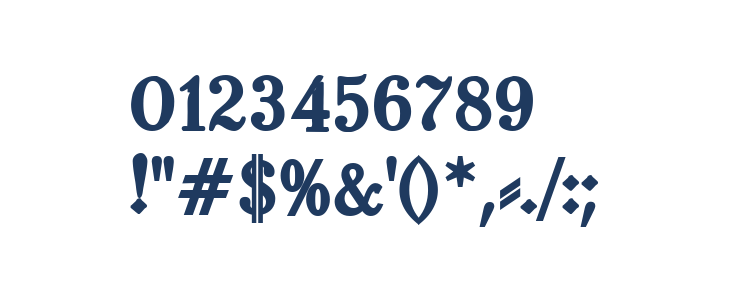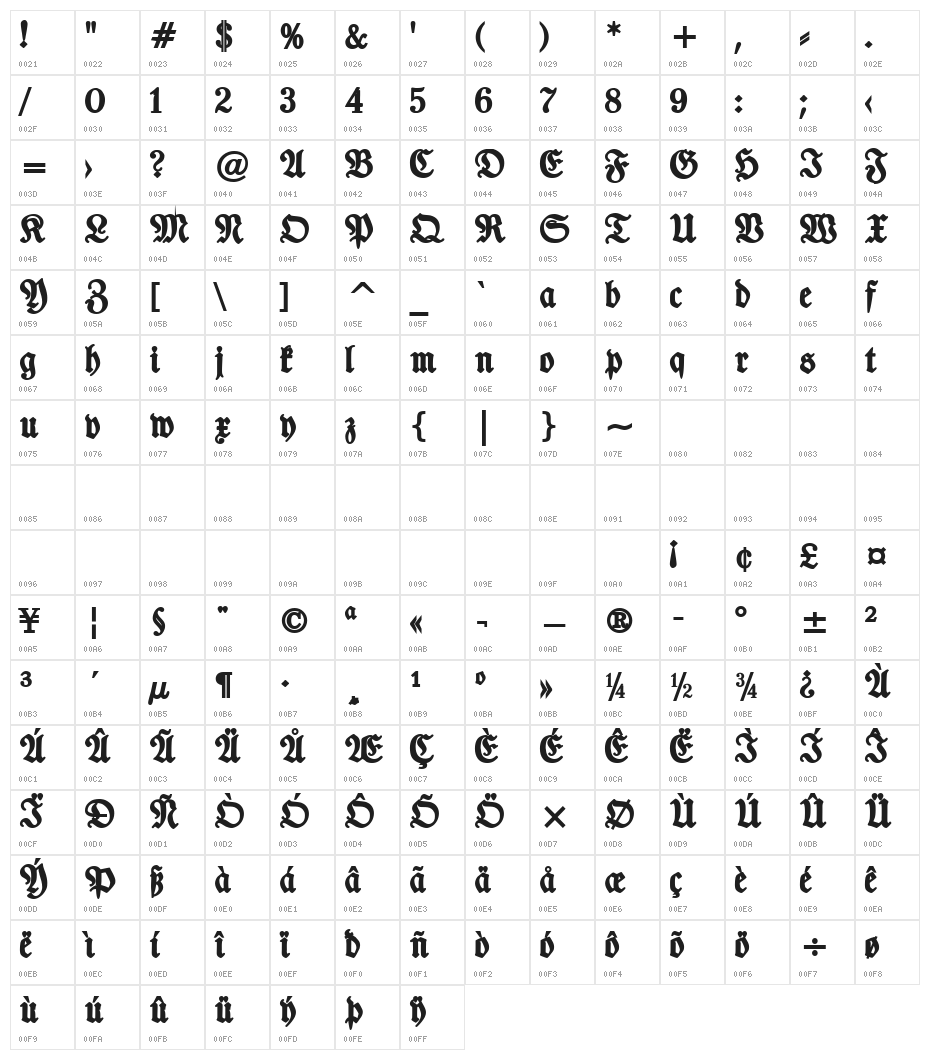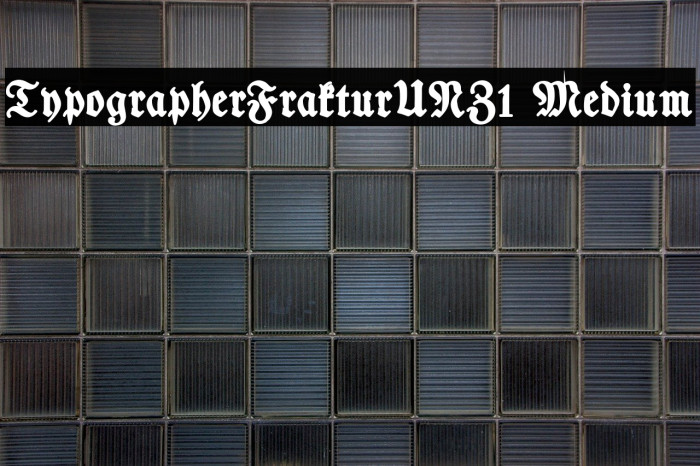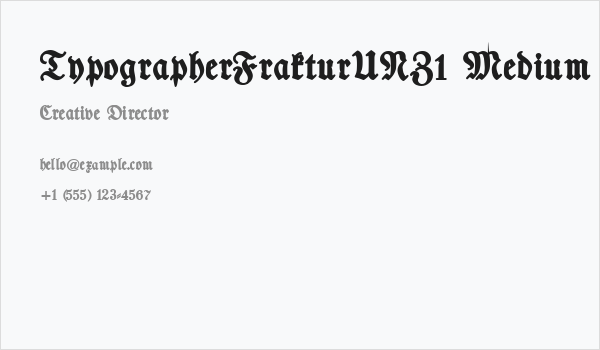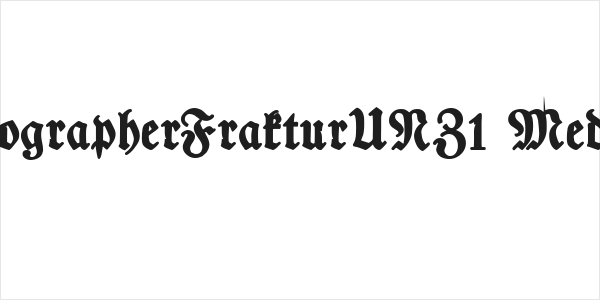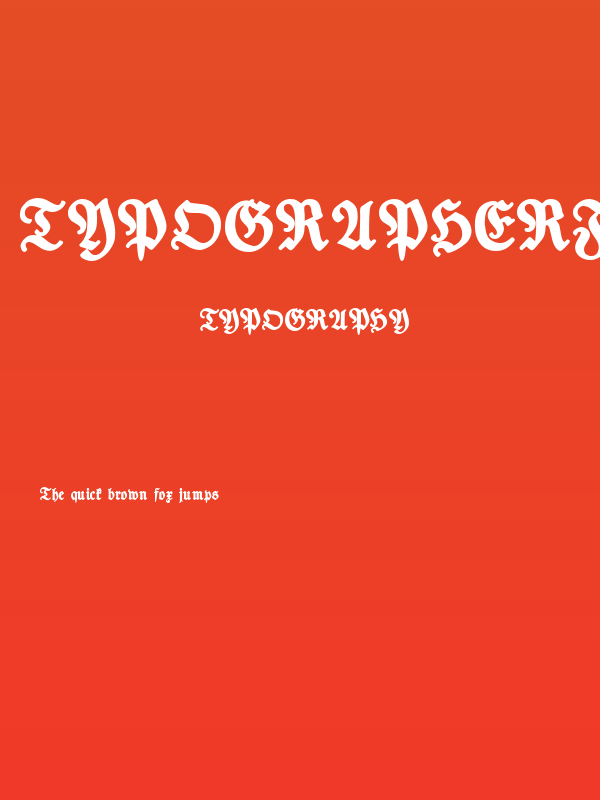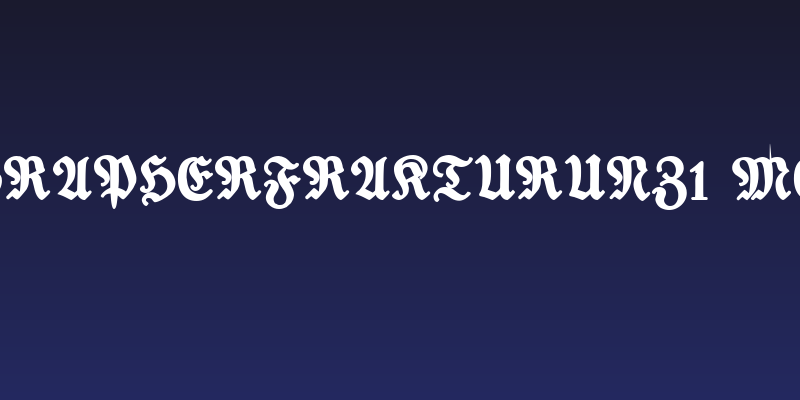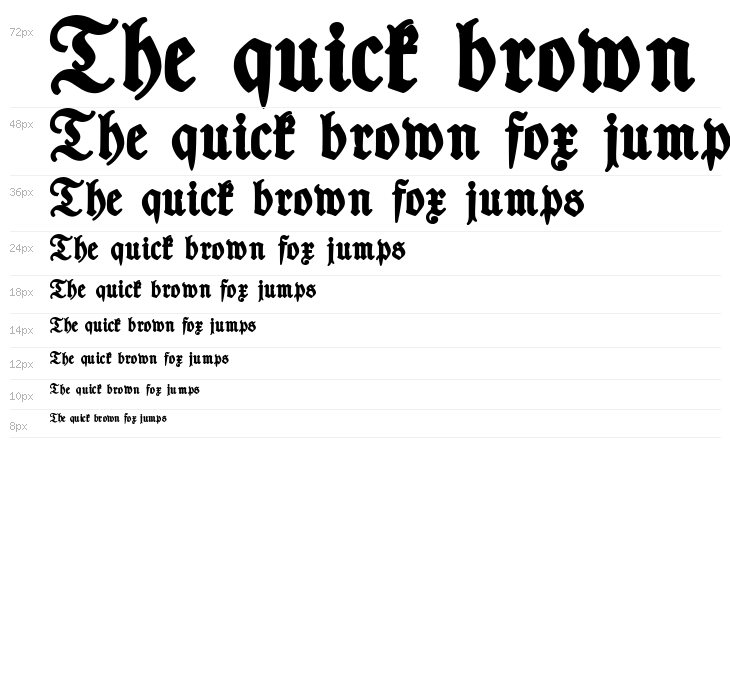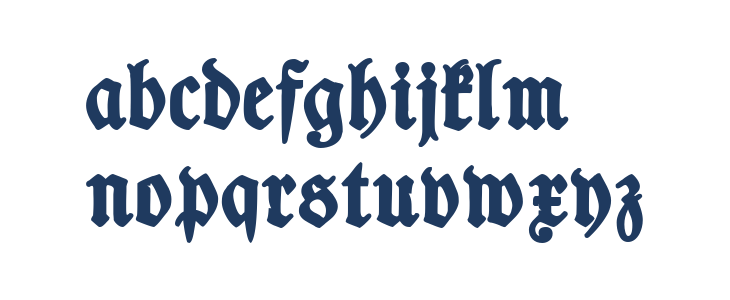
TypographerFrakturUNZ1 Medium Font
TypographerFrakturUNZ1 Medium Description
This font features a classic Blackletter style, characterized by its intricate and ornate letterforms. The uppercase letters exhibit a strong, angular structure with elaborate flourishes, while the lowercase letters maintain a consistent, bold appearance with sharp edges and pointed terminals. The numerals are equally bold and maintain the traditional Blackletter aesthetic, ensuring uniformity across the typeface. Special characters are designed to complement the overall style, featuring similar decorative elements. This font is ideal for projects that require a historical or traditional touch, such as certificates, invitations, or branding that seeks to evoke a sense of heritage.